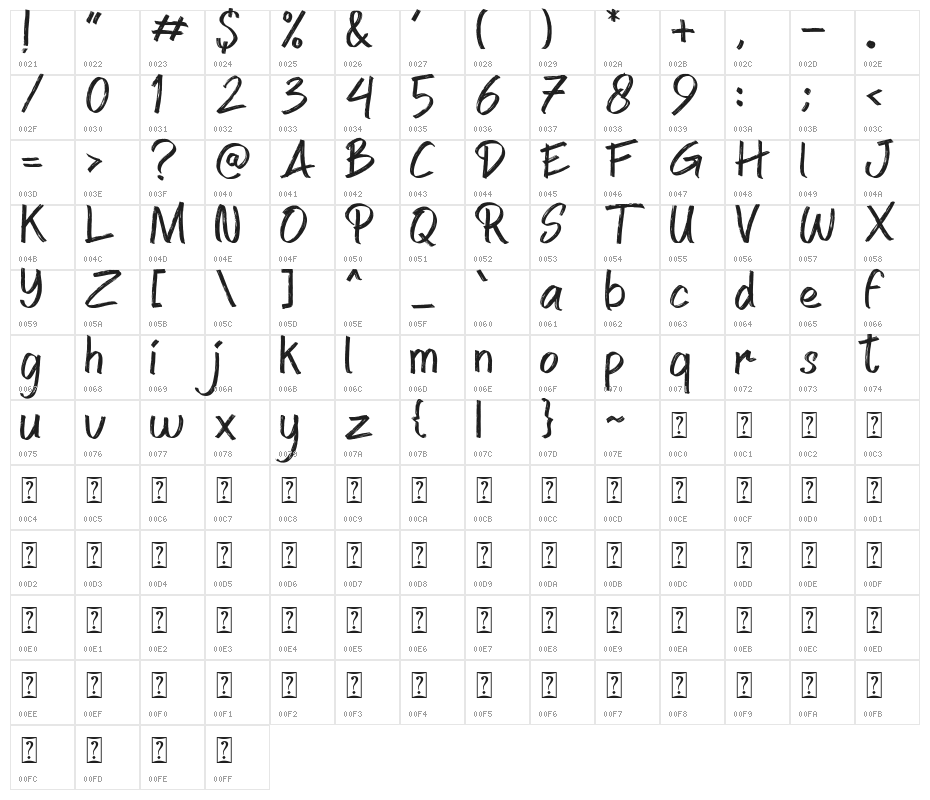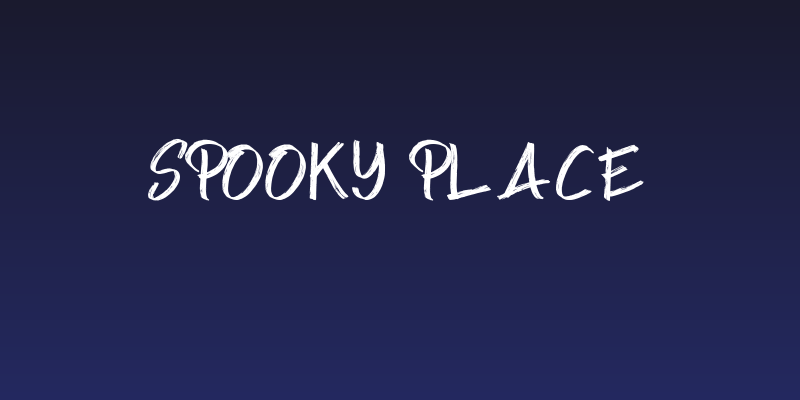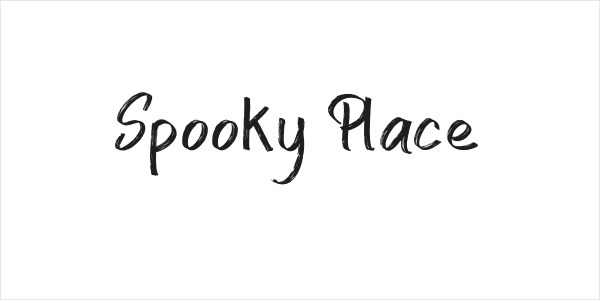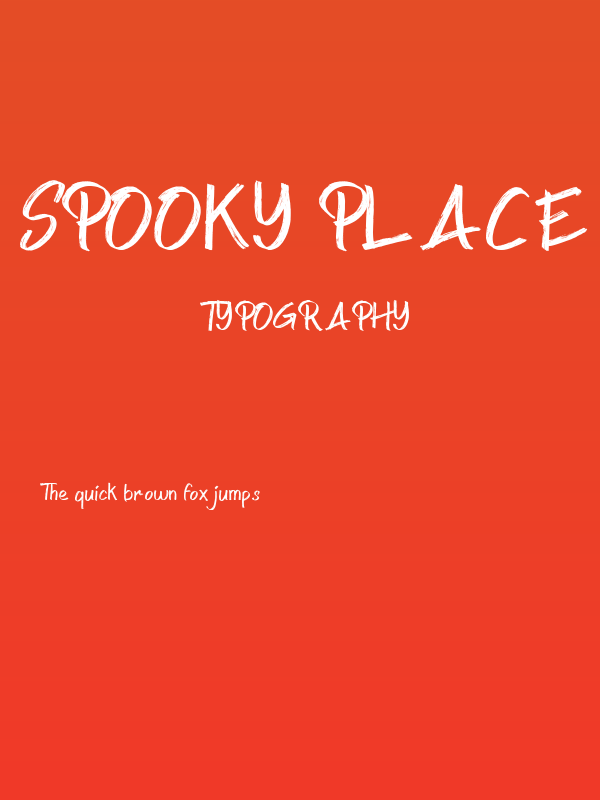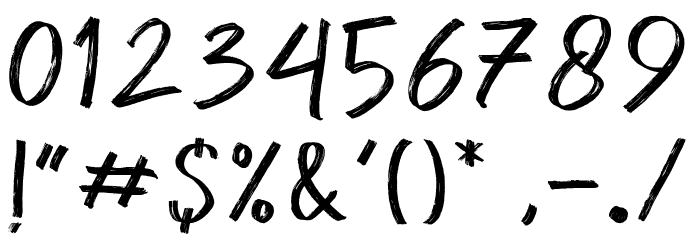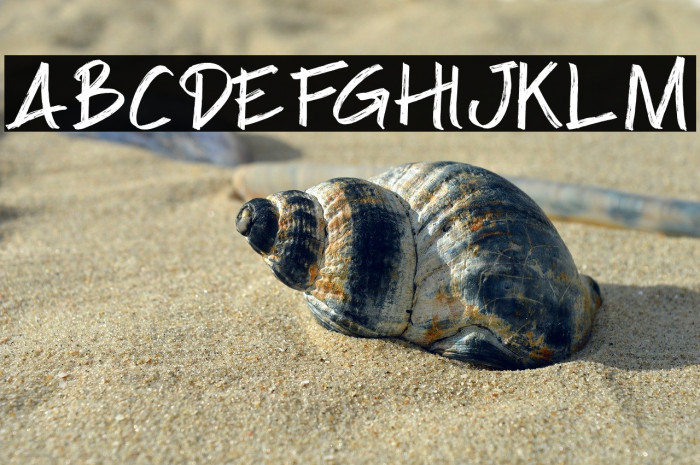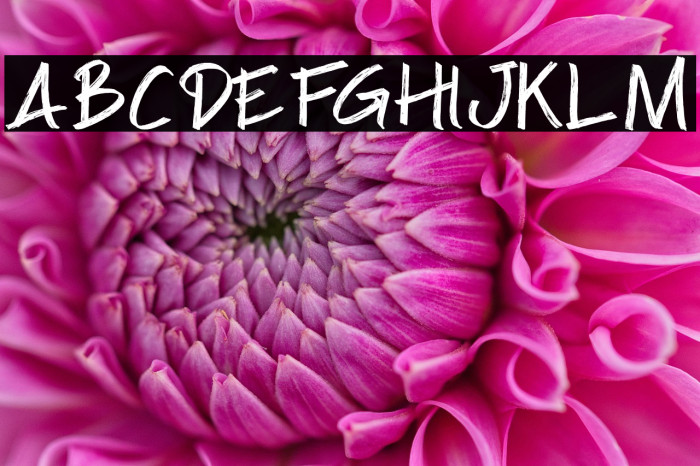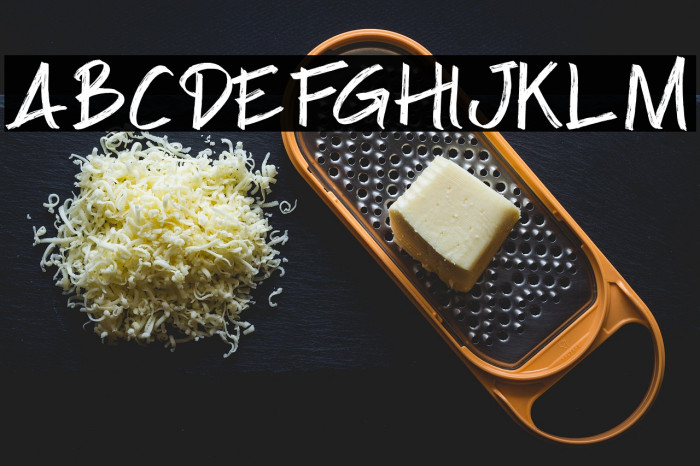
Spooky Place Font
Spooky Place Description
This font exudes a playful and energetic vibe, characterized by its hand-drawn, brush-like strokes. The letters are slightly irregular, giving it a casual and informal appearance. The uppercase letters are bold and dynamic, while the lowercase letters maintain a consistent flow, enhancing its handwritten feel. Numbers and special characters follow the same style, ensuring a cohesive look across all elements. This font's unique style makes it stand out, perfect for projects that require a touch of creativity and spontaneity.